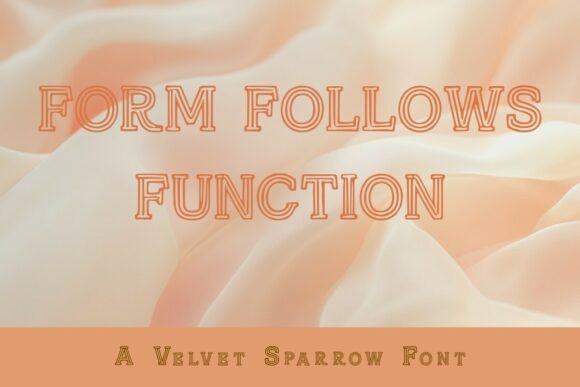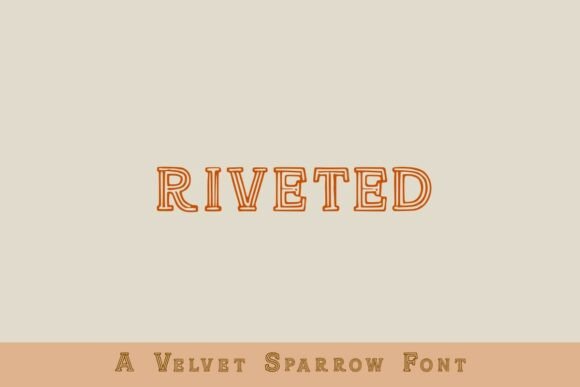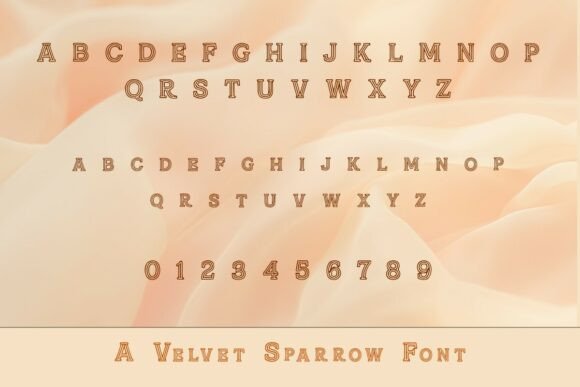
The Gridline Display Font: A Bold, Architectural Masterpiece for Modern Design
I’ll never forget the design project that led me to discover the Gridline Display font. I was working on a futuristic sports branding campaign, and my client asked for a bold, attention-grabbing typography that would make their logo stand out. I scoured the internet for the perfect font, and that’s when I stumbled upon Gridline Display. Its unique triple-line outline aesthetic and hollow, geometric nature immediately caught my eye. I knew right then and there that this font was the perfect fit for the project.
- ✅ Unique and attention-grabbing design: The Gridline Display font is a showstopper. Its bold, architectural aesthetic is perfect for making a statement.
- ✅ Versatile and adaptable: This font works well for a variety of design projects, from sports branding to tech-focused magazines.
- ✅ Easy to layer and combine with other design elements: The hollow, geometric nature of the font makes it easy to create depth and layered effects.
Small Quirks and Limitations ⚠️
- 🤔 May not work well for body text: Due to its bold and decorative nature, Gridline Display is best suited for display use only.
- 🤔 Some characters may be tricky to read at smaller sizes: Be mindful of font size and adjust accordingly to ensure legibility.
The Gridline Display font was inspired by the futuristic and technical designs of the 80s and 90s. Imagine a world where architecture and technology merged to create a new visual language. The designer of Gridline Display aimed to capture this retro-futuristic essence and bring it to modern design. The result is a font that’s both nostalgic and forward-thinking.
| Font Name | Gridline Display Font |
| Author | Velvet.Sparrow |
| What is the best use for Gridline Display? | Gridline Display is best suited for display use, such as headlines, titles, and bold typographic statements. |
| Is Gridline Display suitable for body text? | No, due to its bold and decorative nature, Gridline Display is not recommended for body text. |
| Does Gridline Display come with OpenType features? | Yes, Gridline Display comes with OpenType features, glyphs, and stylistic alternates, which can be accessed in compatible design software. |